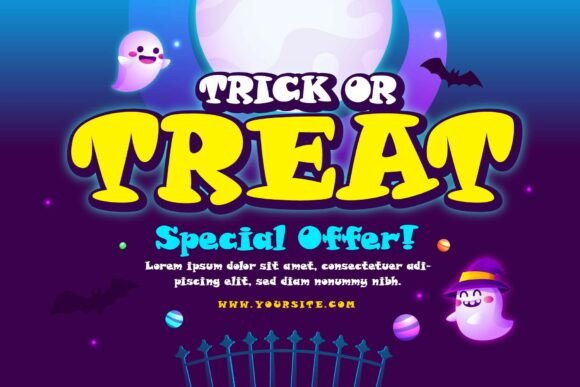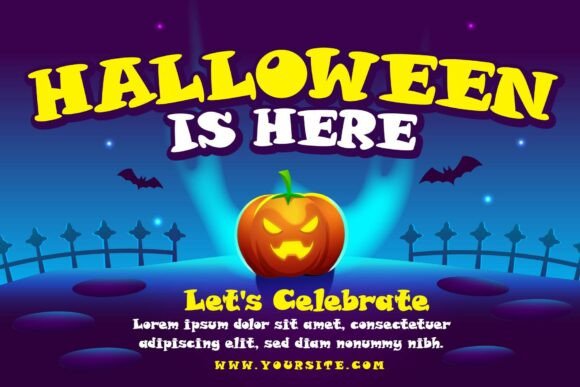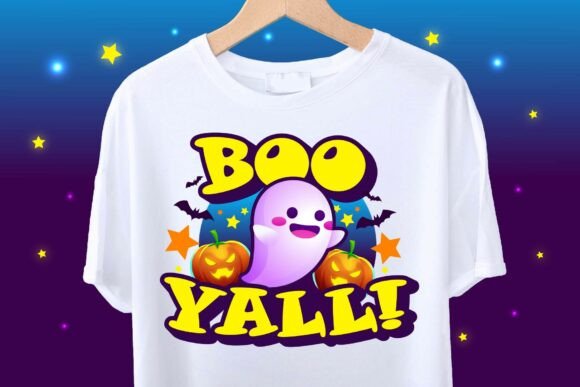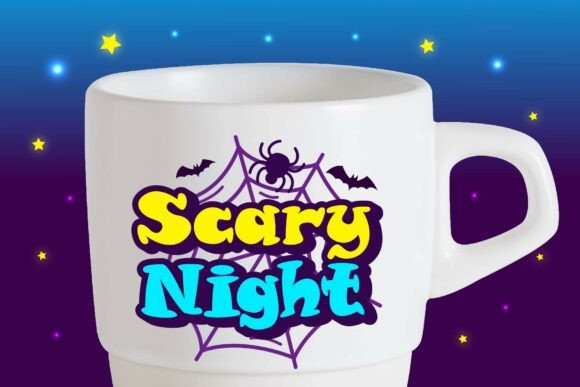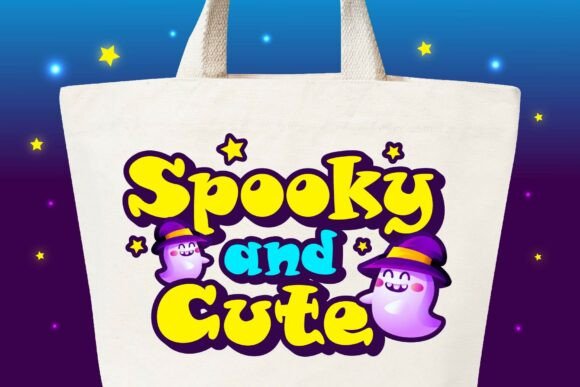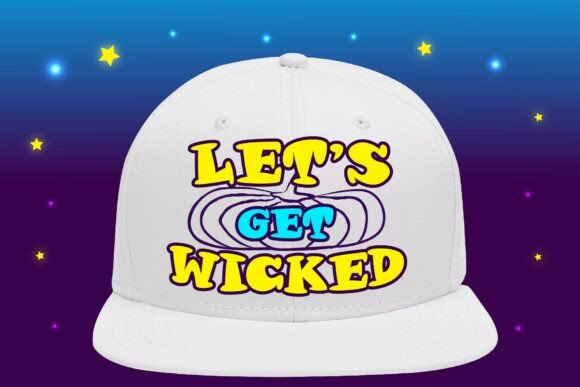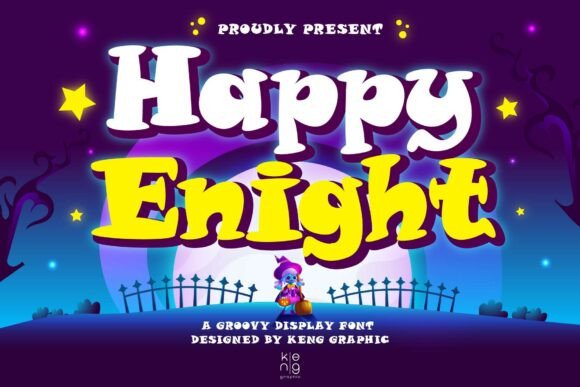
Unleash Your Creativity with the Happy Enight Font
Are you tired of using the same old fonts for your designs? Look no further! The Happy Enight font is here to revolutionize your creative projects with its unique and bold style. This groovy display font is perfect for designers and crafters who want to add a playful and distinctive touch to their work.
What Makes Happy Enight Font So Special?
The Happy Enight font is a game-changer for anyone who wants to create eye-catching designs. Its bold and quirky style is sure to captivate any audience, making it perfect for a wide range of projects, from t-shirts and mugs to bags and caps. With Happy Enight, you can add a touch of personality to your designs and make them stand out from the crowd.
Endless Possibilities with Happy Enight Font
The versatility of the Happy Enight font is one of its most appealing features. Whether you’re a designer, crafter, or DIY enthusiast, this font can be used to create a wide range of projects, including:
- T-shirts and hoodies
- Mugs and water bottles
- Bags and tote bags
- Social media graphics and more!
Why Choose Happy Enight Font?
So, why choose the Happy Enight font for your next project? Here are just a few reasons:
- Unique Style: The Happy Enight font has a one-of-a-kind style that’s sure to grab attention.
- Easy to Use: This font is easy to read and works well in a variety of contexts.
- High-Quality: The Happy Enight font is a high-quality font that’s perfect for printing and digital use.
- Versatile: This font can be used for a wide range of projects, from casual to professional.
Tips for Using Happy Enight Font
Here are a few tips for getting the most out of the Happy Enight font:
- Experiment with Colors: The Happy Enight font looks great in a variety of colors, so don’t be afraid to experiment and find the perfect hue for your project.
- Pair with Other Fonts: This font pairs well with a variety of other fonts, so try combining it with other styles to create a unique look.
- Use for Headlines: The Happy Enight font is perfect for headlines and titles, so use it to add a pop of personality to your designs.
With the Happy Enight font, you can transform your designs into fantabulous pieces that are sure to impress. Whether you’re a seasoned designer or just starting out, this font is a must-have for anyone who wants to add a touch of creativity and personality to their work.
In conclusion, the Happy Enight font is a game-changer for designers and crafters who want to add a unique and bold style to their projects. With its versatility, high-quality design, and endless possibilities, this font is sure to become a favorite in your design arsenal. So why wait? Discover a world of creativity with the Happy Enight font and watch your designs transform into something truly special!